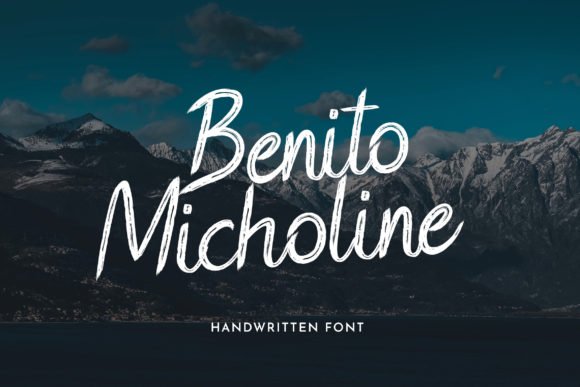
Find Your Creative Flow with the Benito Micholine Font
As you sit at your desk, surrounded by sketches, color palettes, and typography samples, the question arises: what’s the perfect font to elevate your design to the next level? It’s a moment we’ve all experienced – a spark of inspiration that sets our creative juices flowing. For fashion branding and editorial designs, one font stands out from the crowd: the Benito Micholine Font.
This beautiful cursive brushed script font is a game-changer for designers. Its smooth curves and elegant feel make it perfect for adding a touch of sophistication to your projects. Whether you’re working on a fashion magazine, a luxury brand campaign, or a high-end editorial piece, the Benito Micholine Font is sure to deliver stunning results.
Benito Micholine Font Key Features
- Font Family: Benito Micholine Font
- Unique Characteristics:
Designer Review: Benito Micholine Font
Overall, I was excited to dive into the Benito Micholine font and see what it had to offer. Let’s get into the good stuff first – ✨ the font’s elegant, cursive script is a true standout. The flowing lines and organic feel make it perfect for adding a touch of sophistication to designs that need a bit of flair.
Additionally, ✨ the font’s wide range of weights and styles makes it incredibly versatile. From light and airy to bold and dramatic, Benito Micholine has got you covered. I also appreciate the attention to detail in the font’s design, with subtle nuances that add depth and character.
However, ⚠️ I did find the font to be a bit on the heavier side, which may make it difficult to read in certain contexts. Additionally, ⚠️ the font’s cursive script can sometimes make it challenging to achieve consistent line spacing, which may require some extra tweaking in design software.
Conclusion
Despite these limitations, I think Benito Micholine is a solid choice for designers looking to add a touch of elegance to their work. With its flowing script and wide range of styles, it’s sure to be a hit in the right projects. Just be mindful of the font’s weight and line spacing, and you’ll be golden.